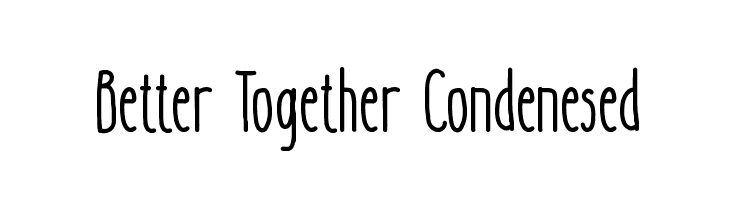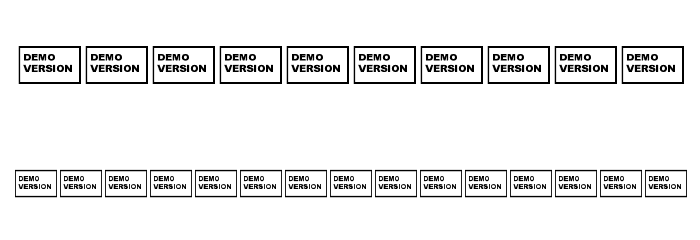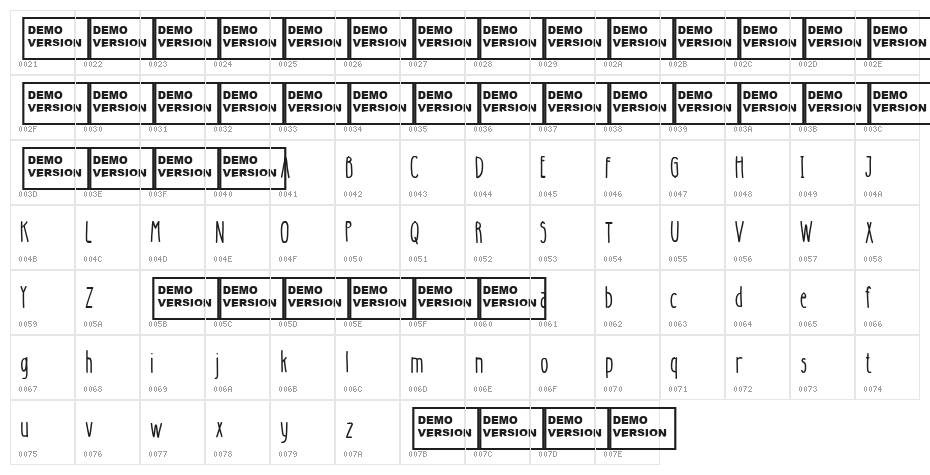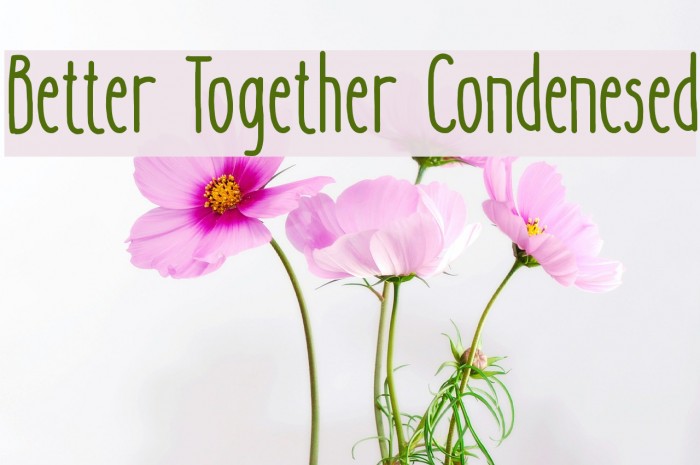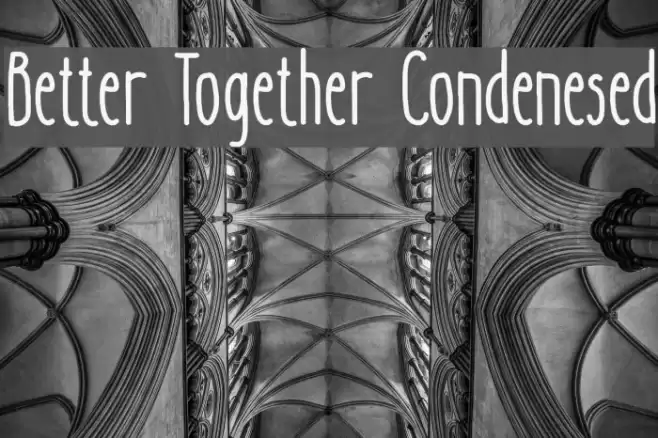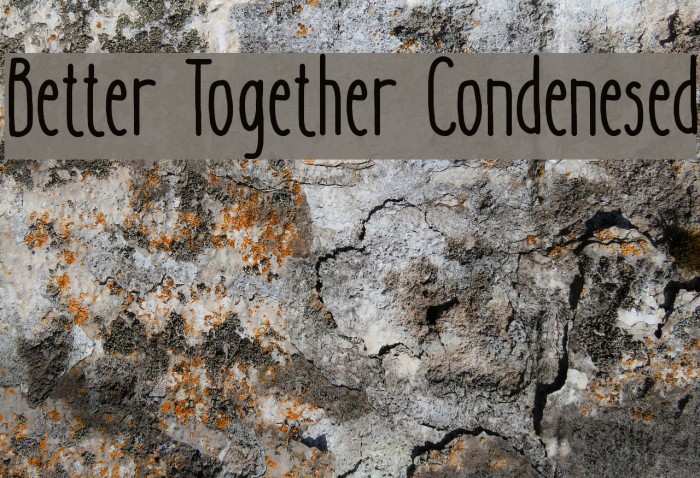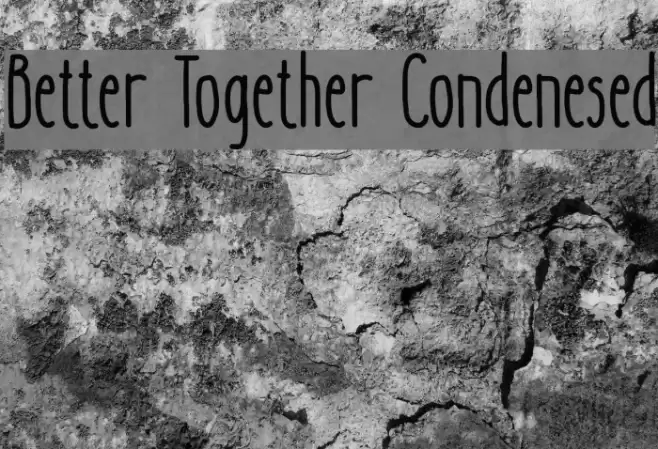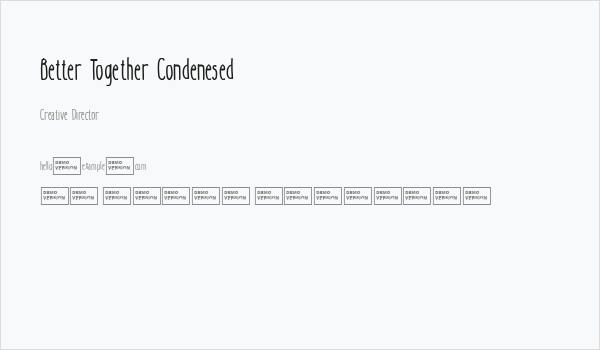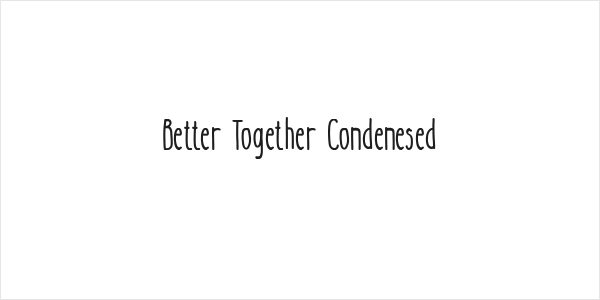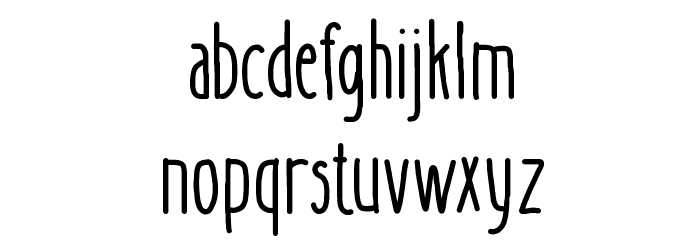
Better Together Condenesed Font
Better Together Condenesed Description
This font features a playful and casual style with a condensed form, giving it a unique and approachable appearance. The letters are slightly irregular, adding a hand-drawn feel that enhances its charm. The uppercase and lowercase characters maintain a consistent height, contributing to its cohesive look. The strokes are uniform, with a medium contrast that ensures readability while retaining its distinct personality. This font is well-suited for projects that require a friendly and informal touch, making it ideal for creative and artistic applications.
| Proposed Projects | Ideal for greeting cards, posters, children's books, and creative branding. |